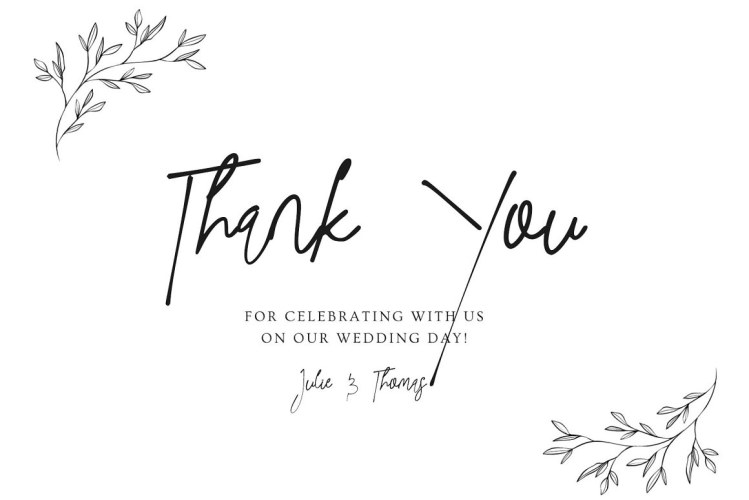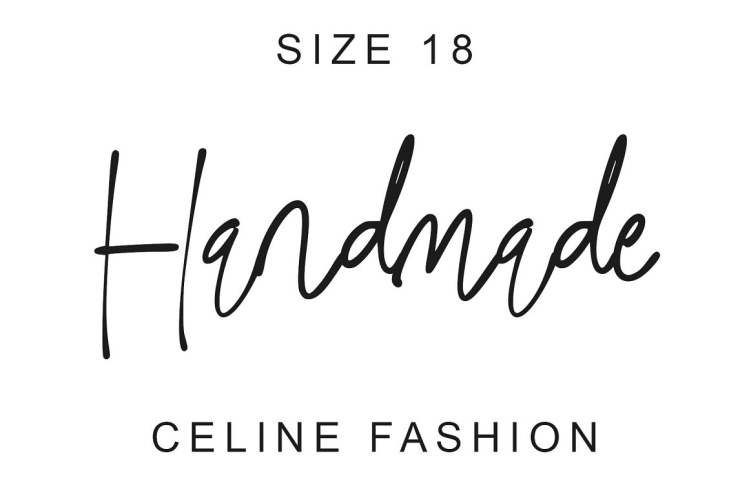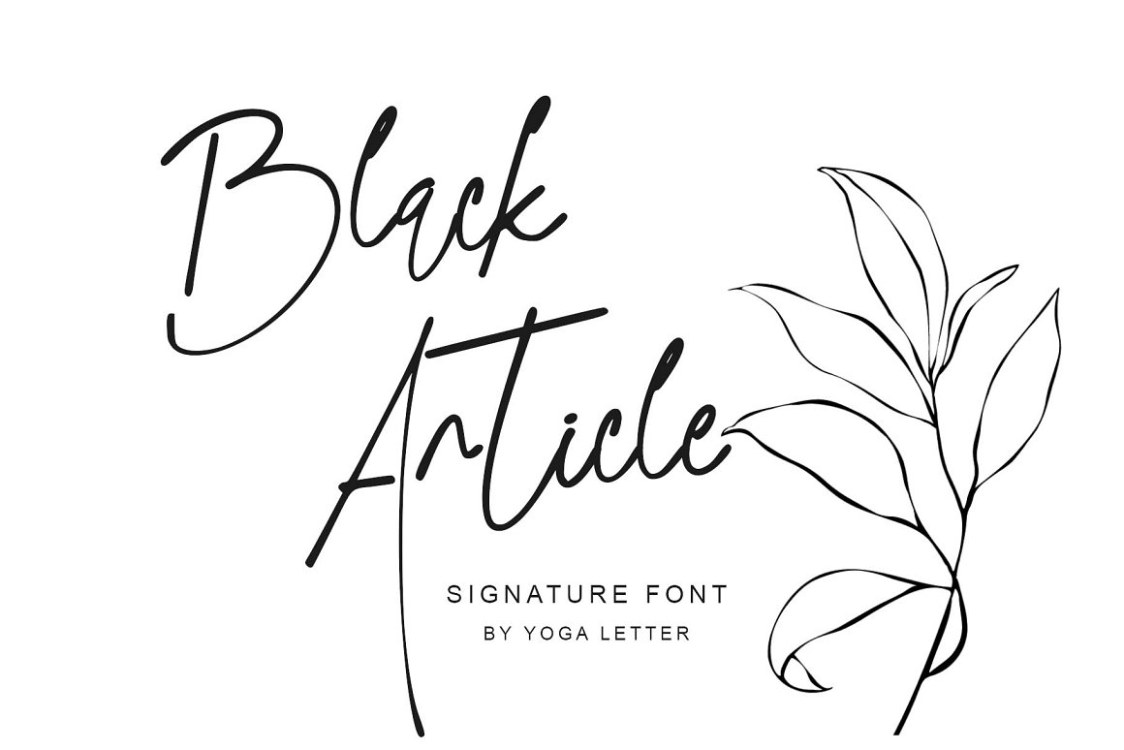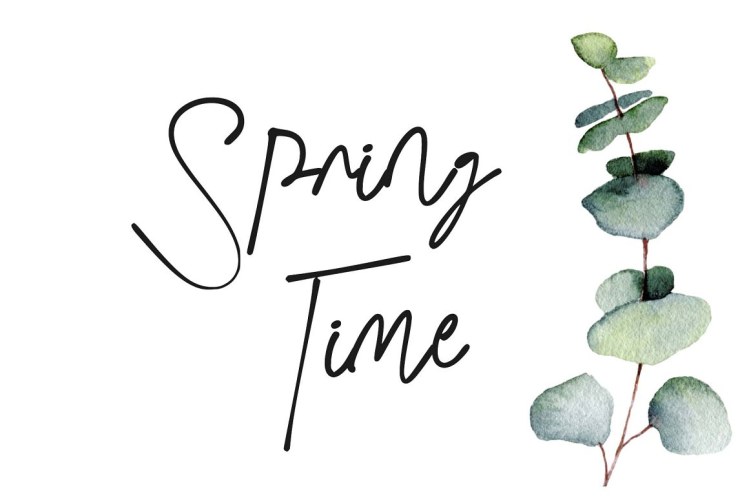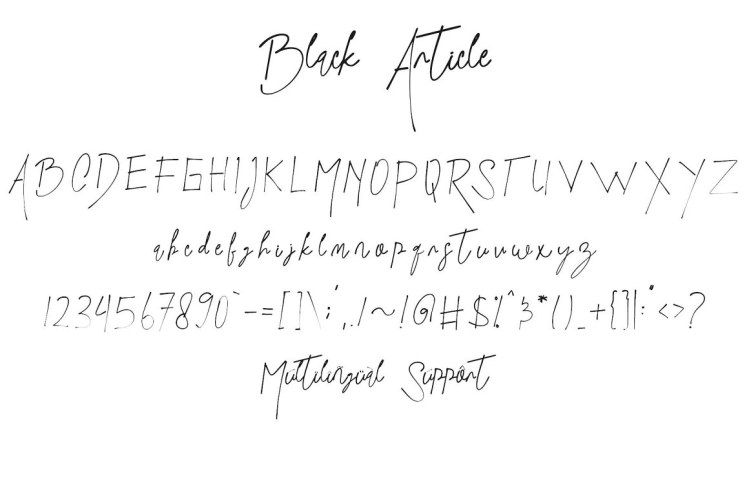
Black Article Font
“Black Article” is a very elegant and beautiful signature font. This font is very easy to use because it has been specially designed. Equipped with uppercase, lowercase, numerals, punctuation, and multilingual support. It is suitable for weddings, invitations, movie titles, book titles, logos, stickers, and more.
Where Black Article Font works best
Black Article Font brings a personal, handwritten warmth to invitations, menus and place cards.
Craft brands — coffee, cosmetics, bakery — use scripts like Black Article Font for signature-style logos and labels.
Pair Black Article Font with a plain sans for quotes, stories and Pinterest pins that feel handmade.
What is Black Article Font good for?
Black Article Font is a Script And Handwritten typeface tagged Branding, Craft, Elegant, Handwritten. It works well for headlines, logos, posters, social media graphics and branding projects that need a distinctive script and handwritten look.